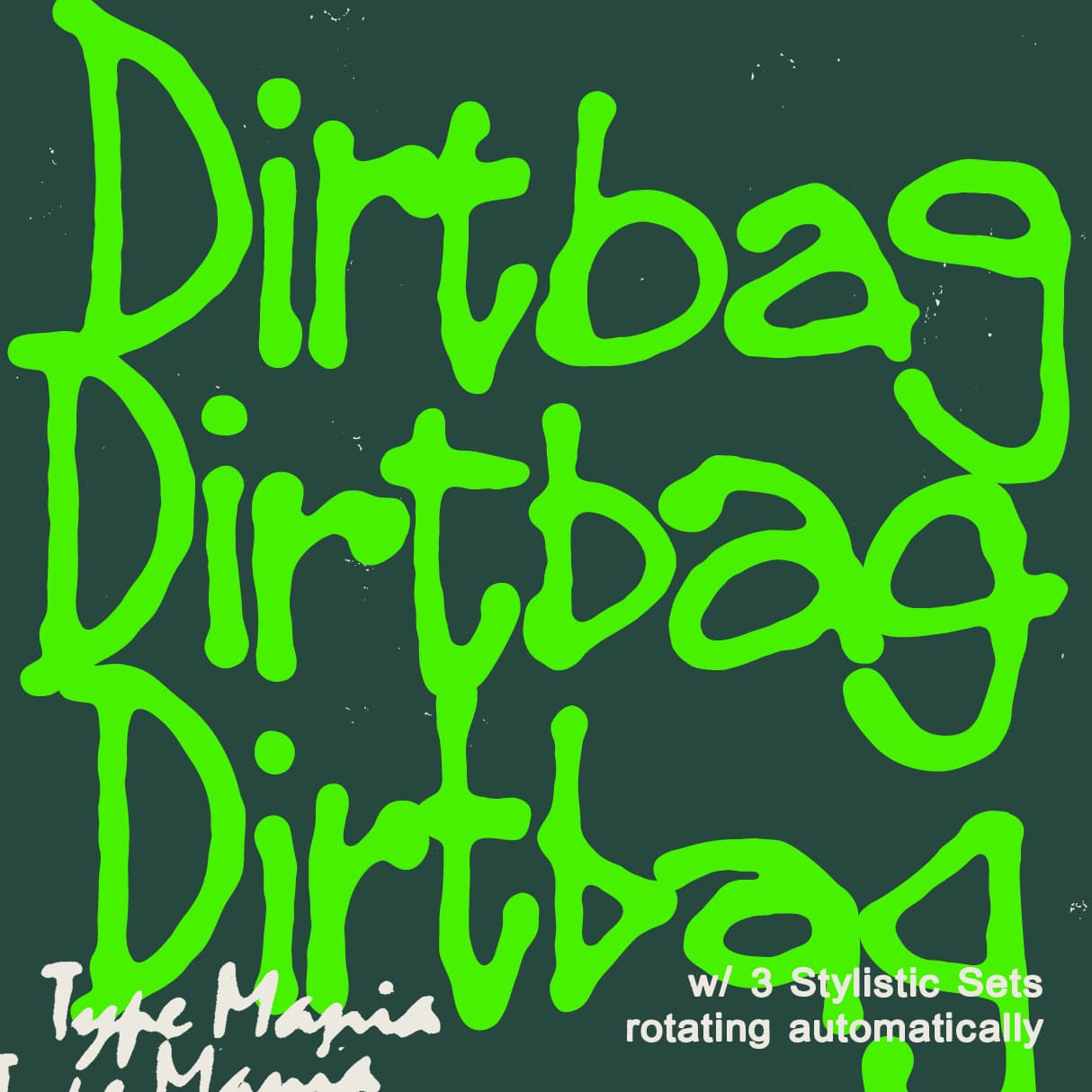
<p><strong>Dirtbag TM</strong> is a handmade display face, sketched by hand and kept imperfect on purpose. Switching on contextual alternates rotates three stylistic sets in a 1-2-3-1-2-3 pattern, creating an organic texture for both paper and pixels 🫡</p><p></p><p><strong>Zip includes</strong></p><ul><li><p>OTF file</p></li><li><p>TTF file</p></li><li><p>WOFF2 file</p></li></ul><p></p><p><strong>OpenType features</strong></p><ul><li><p>3 stylistic sets</p></li><li><p>The font is programmed to automatically shift between the stylistic sets</p></li></ul><p></p><p><strong>Languages</strong></p><ul><li><p>Basic Latin</p></li><li><p>Western European</p></li><li><p>Euro</p></li><li><p>Central European</p></li><li><p>Pan African Latin</p></li></ul><p></p><p><em>Graphic Design is Easy (with Type Mania)®</em></p>